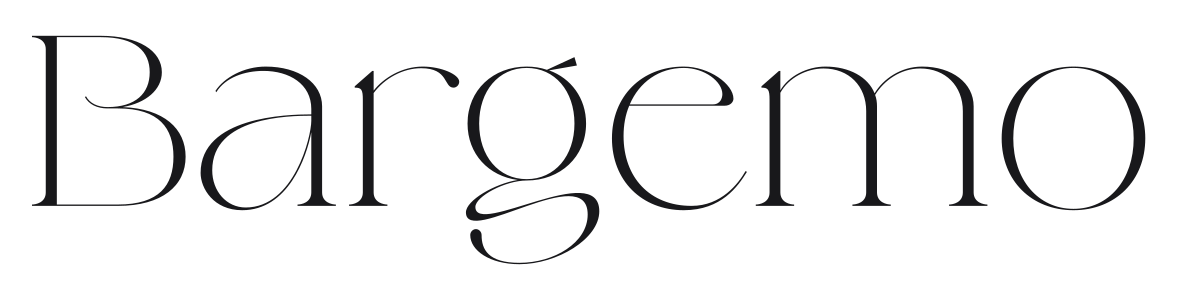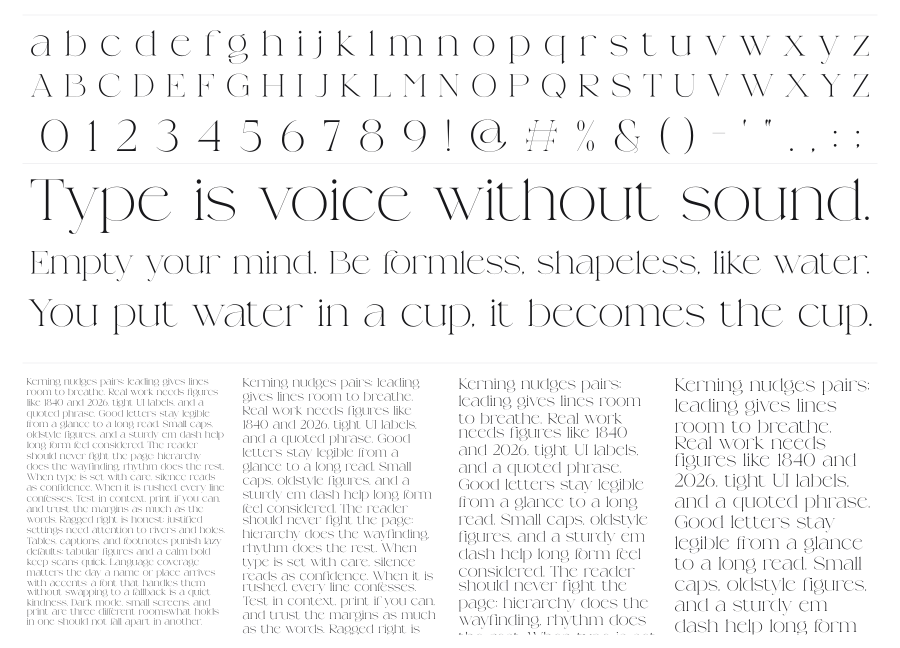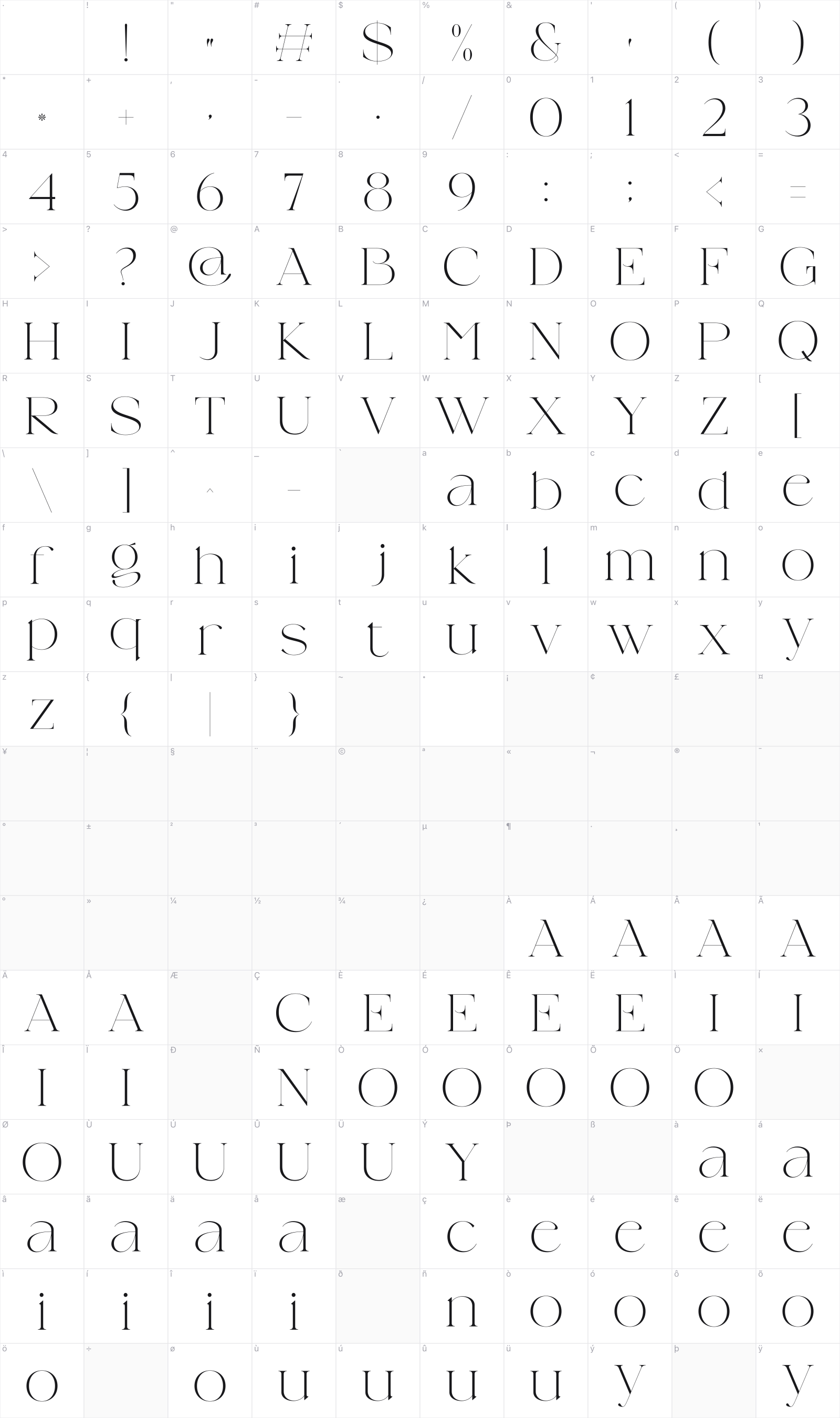
Bargemo
Bargemo is a high-contrast modern serif built on the Didone tradition, with dramatic thin hairlines set against strong vertical stems. The wide, open proportions and gossamer-weight strokes give it an airy, refined quality that reads as confidently luxurious. It suits editorial headlines, fashion branding, and any context where elegance needs to speak at large sizes.